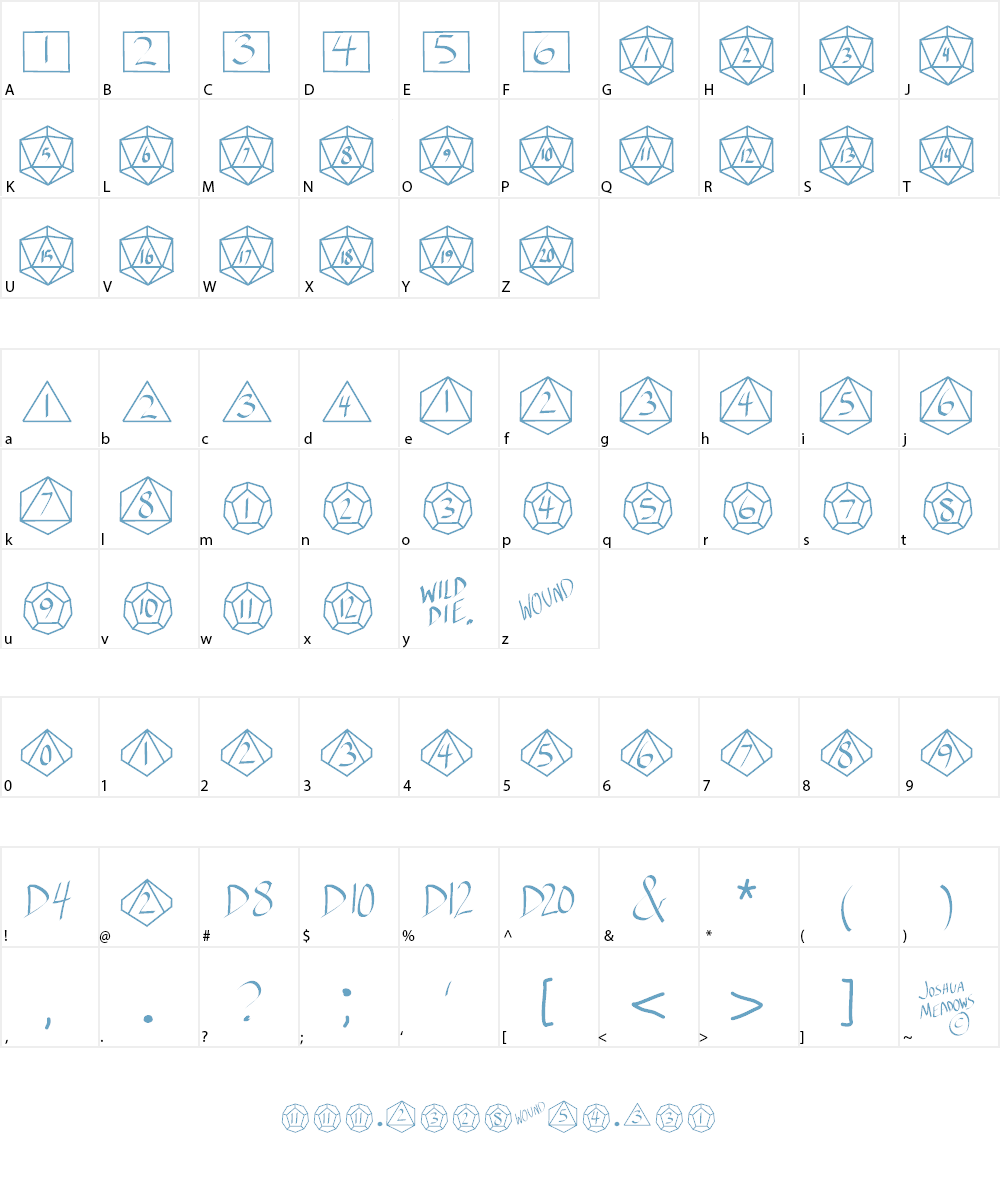
Included in this zip file is a GamingDice font that covers your basic polyhedral set of a d4, d6, d8, d10,d12. Plus some extras glyphs suitable for character sheets or gaming notes.